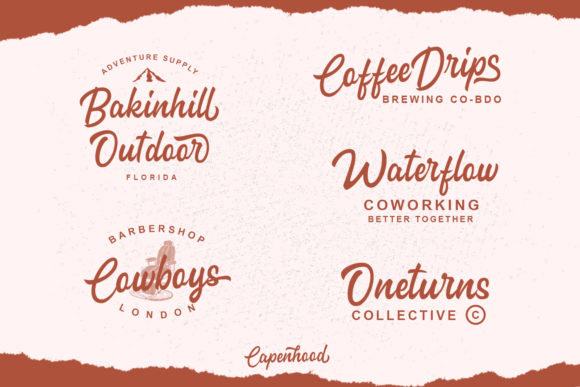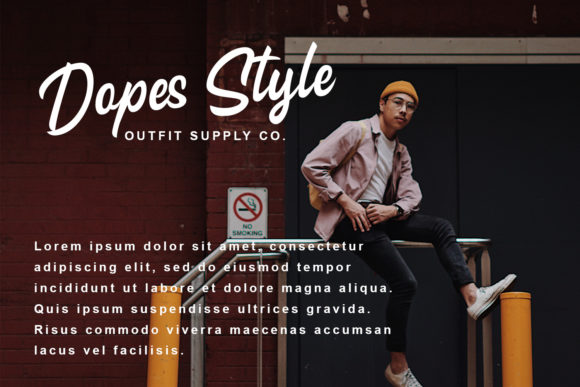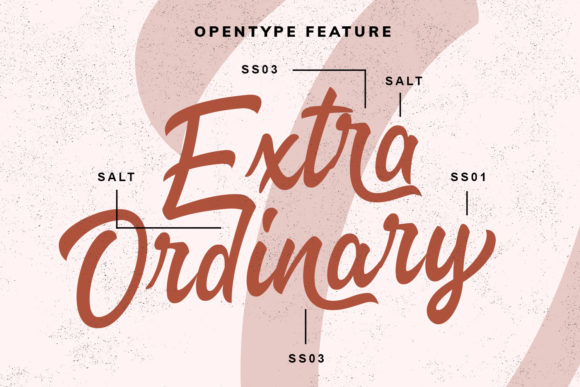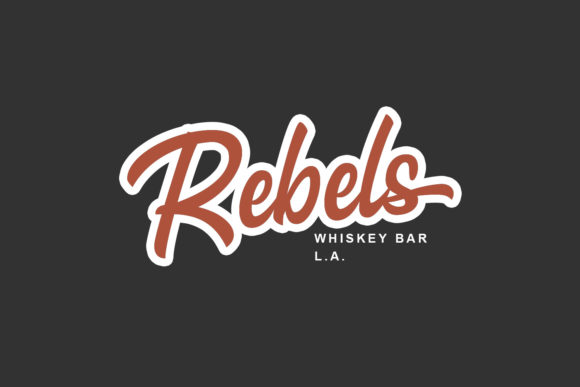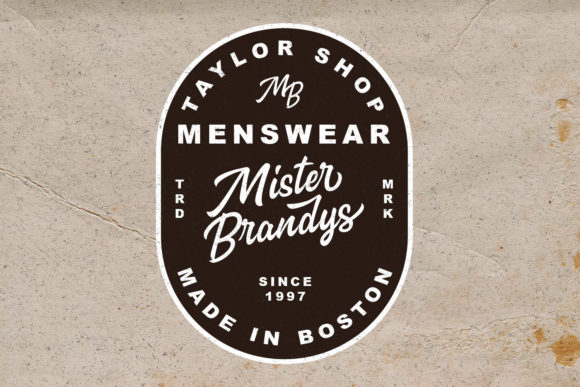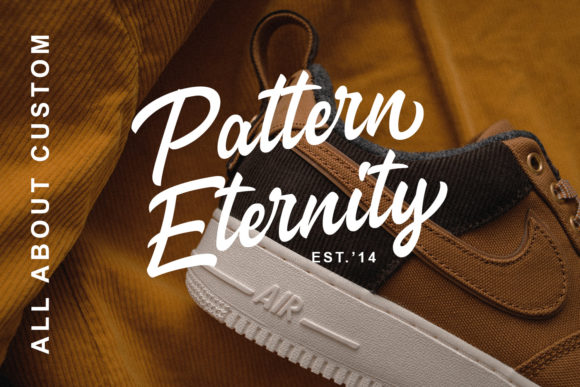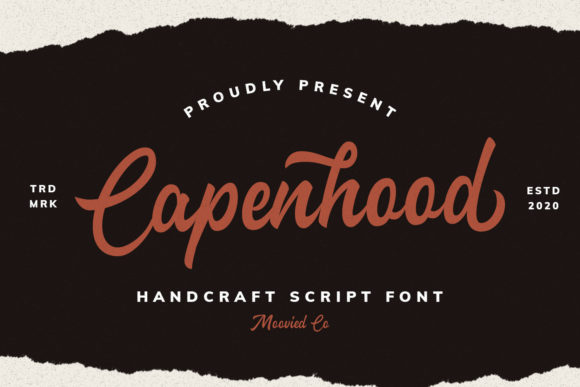
Introducing Capenhood Font: Elevate Your Designs with Elegance and Sophistication
In the world of typography, a font can make or break a design. For designers and crafters seeking to add a touch of elegance and sophistication to their work, look no further than the Capenhood font. This stylish and incredibly elegant script font has taken the design community by storm, and for good reason. With its beautiful, flowing lines and classic charm, Capenhood is the perfect choice for a wide range of design projects.
The Versatility of Capenhood Font
One of the standout features of Capenhood font is its versatility. Whether you’re working on a wedding invitation, a thank you card, a quote, or a logo, this font is sure to impress. Its elegant script style adds a touch of sophistication to any design, making it perfect for formal events, business projects, and even personal creations. From greeting cards to business cards, Capenhood font is the perfect choice for anyone looking to add a handwritten touch to their designs.
Why Designers and Crafters Love Capenhood Font
So, what sets Capenhood font apart from other script fonts on the market? For starters, its unique and beautiful design makes it a standout choice for any project. The font’s flowing lines and classic charm evoke a sense of nostalgia and romance, making it perfect for wedding-related designs, anniversary cards, and other special occasions. Additionally, Capenhood font is incredibly easy to read, making it a great choice for designs that require a clear and legible font.
Wedding designers and event planners, rejoice! Capenhood font is the perfect choice for your next project. Whether you’re designing wedding invitations, save-the-date cards, or thank you notes, this font is sure to impress. Its elegant script style adds a touch of sophistication and romance to any design, making it perfect for formal events. Plus, with its clear and legible design, your clients will appreciate the beauty and readability of Capenhood font.
Tips for Using Capenhood Font in Your Designs
To get the most out of Capenhood font, here are a few tips to keep in mind:
- Use it sparingly: While Capenhood font is beautiful, it’s best used in moderation. Try pairing it with a simpler font for body text to create visual interest.
- Experiment with colors: Capenhood font looks stunning in a range of colors, from classic black and white to metallic gold and copper.
- Play with sizes: Don’t be afraid to experiment with different font sizes to create visual hierarchy in your design.
In conclusion, Capenhood font is a stylish and incredibly elegant script font that’s perfect for designers and crafters looking to add a touch of sophistication to their work. With its beautiful, flowing lines and classic charm, Capenhood is sure to impress on wedding invitations, thank you cards, quotes, greeting cards, logos, business cards, and every other design that needs a handwritten touch. So why wait? Give Capenhood font a try today and elevate your designs to the next level!
Key Features of Capenhood Font
- Elegant script style
- Beautiful, flowing lines
- Classic charm
- Incredibly easy to read
- Perfect for formal events and business projects
- Great for wedding-related designs, anniversary cards, and other special occasions
Whether you’re a seasoned designer or a crafty DIY enthusiast, Capenhood font is sure to become a favorite in your toolkit. So go ahead, get creative, and see what amazing designs you can create with Capenhood font!